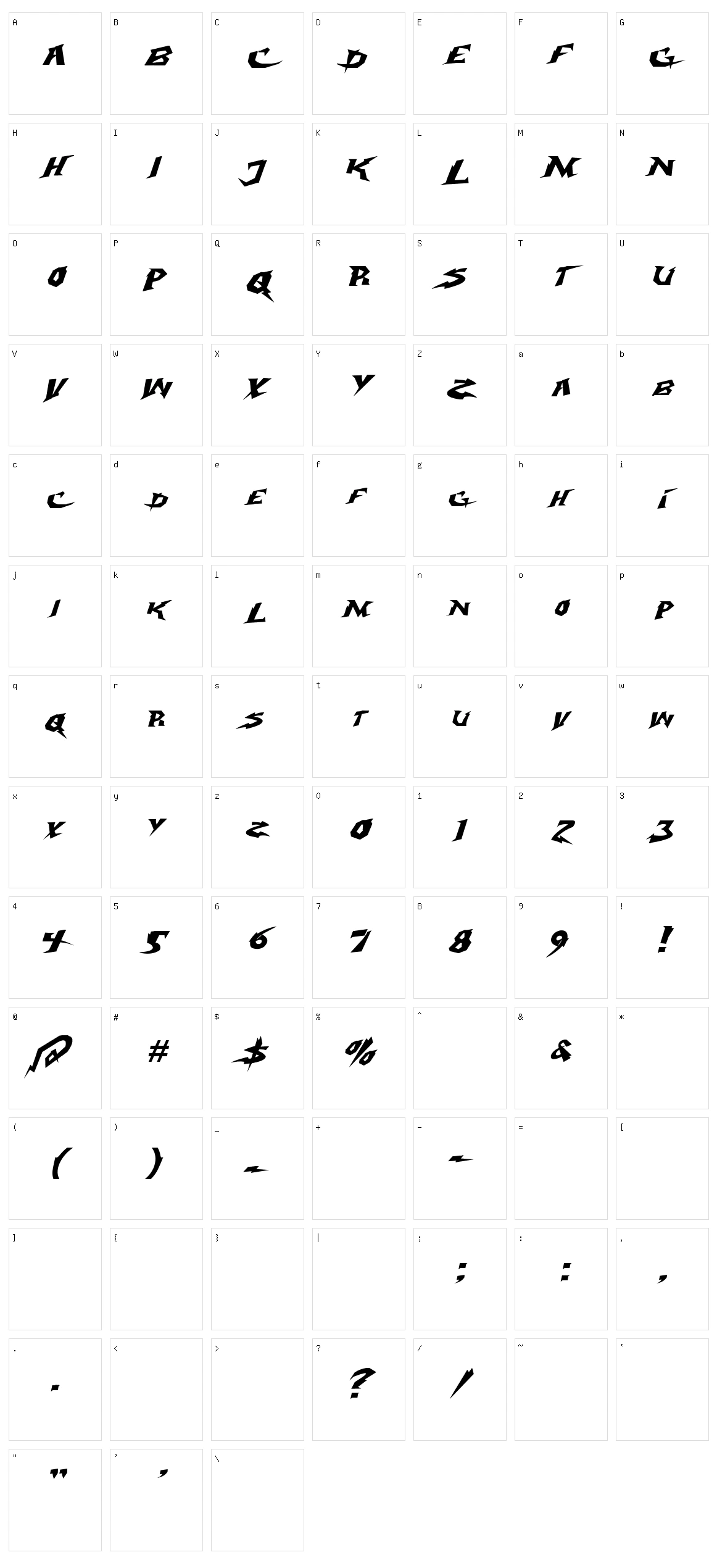
Hey there everyone. This was a font i designed for a client resembling
the cartoon Static Shock. It has been a while since i stopped designing fonts but